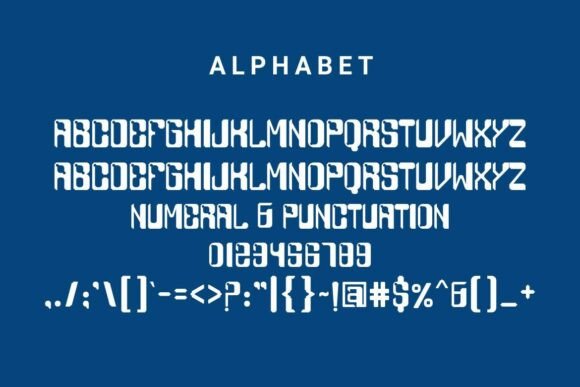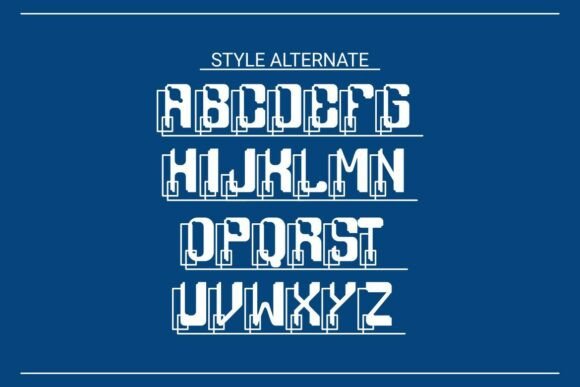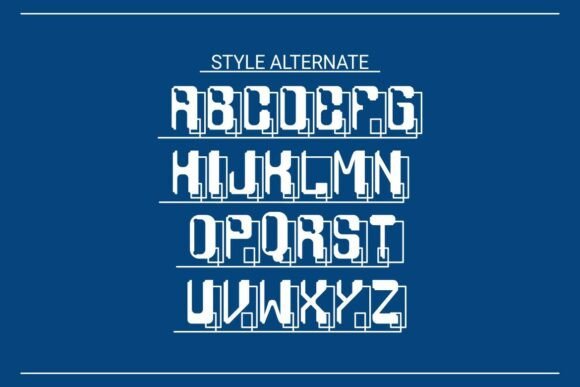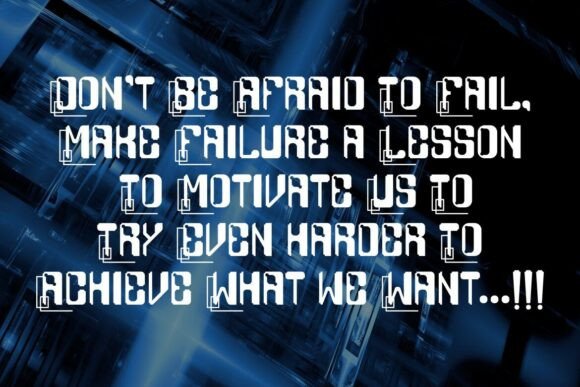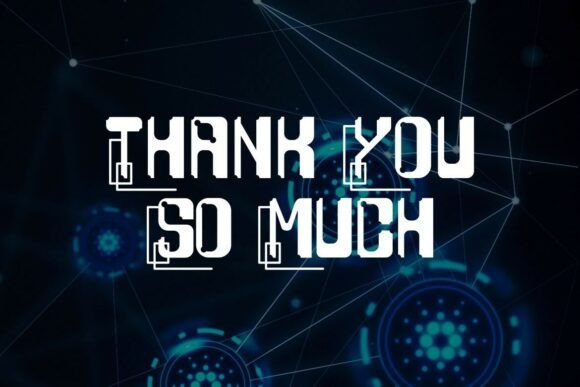
Introduction to Maxime Techno Font Font
Step into a digital future with the Maxime Techno font, a cutting-edge techno decorative font designed for high-performance visual identities.
This Maxime Techno typeface features a bold, architectural structure with intricate circuitry-inspired outlines and geometric cutouts that perfectly capture the essence of advanced technology and cyberculture Whether you are branding a new software startup, designing immersive gaming interfaces, or creating high-energy electronic music posters, the Maxime Techno font provides an immediate sense of innovation and digital precision.
Key Features of Maxime Techno Font Font